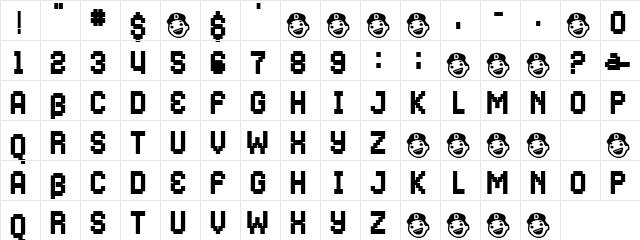
One Tin Soldier Regular
Design Context for One Tin Soldier Typeface
One Tin Soldier draws on military and industrial lettering traditions, with forms that communicate strength and precision.
Designed for tactical branding, military-inspired apparel, action game UI, and utility-focused signage.
Pro Tip: Use One Tin Soldier at medium-to-large sizes where its utilitarian structure can be appreciated — the character detail gets lost at small sizes.